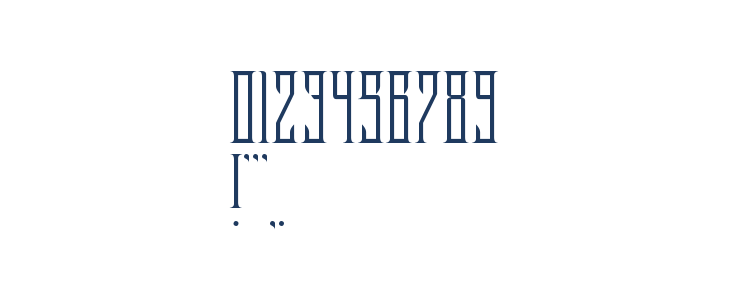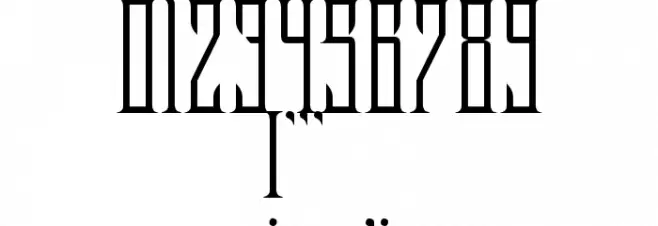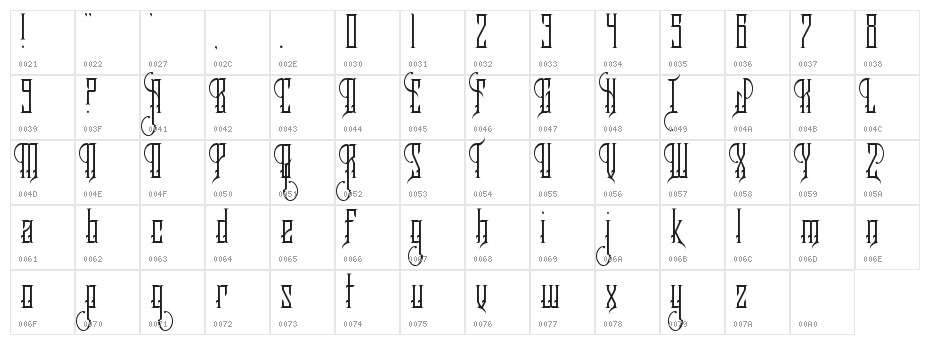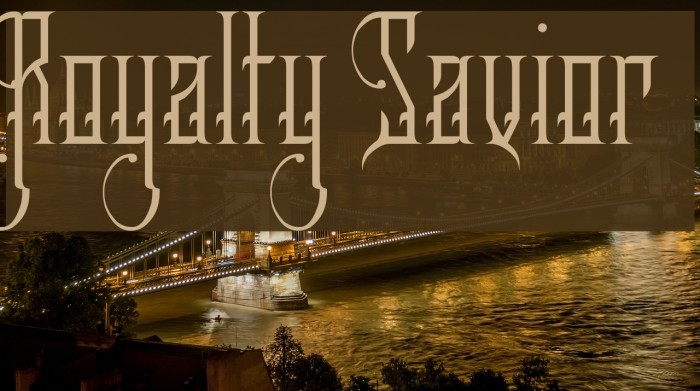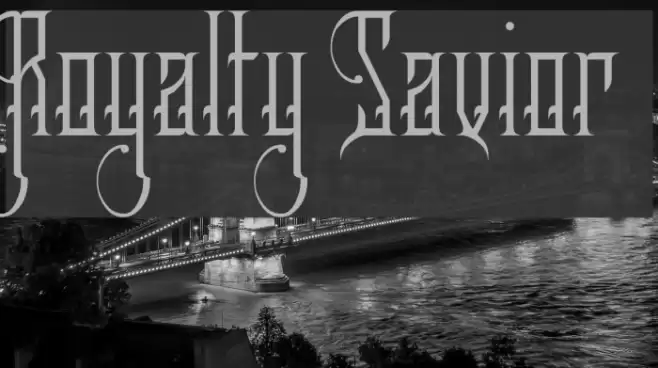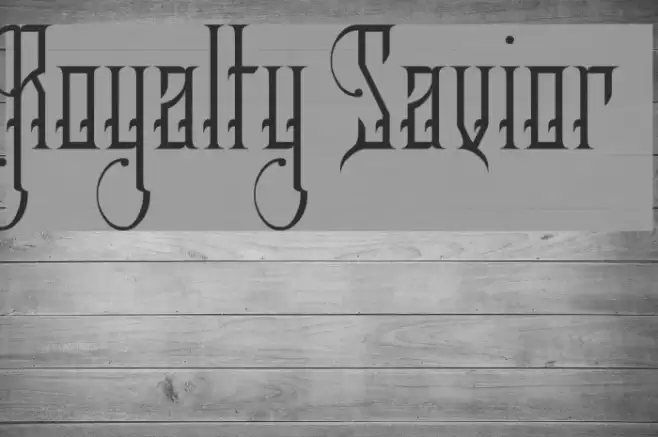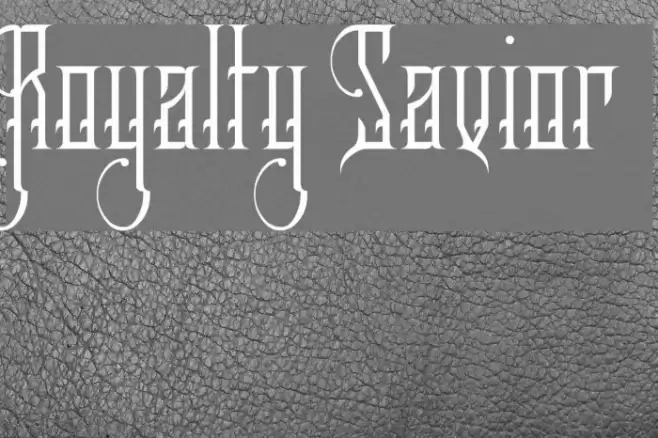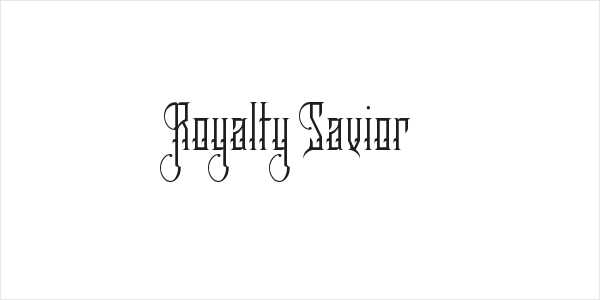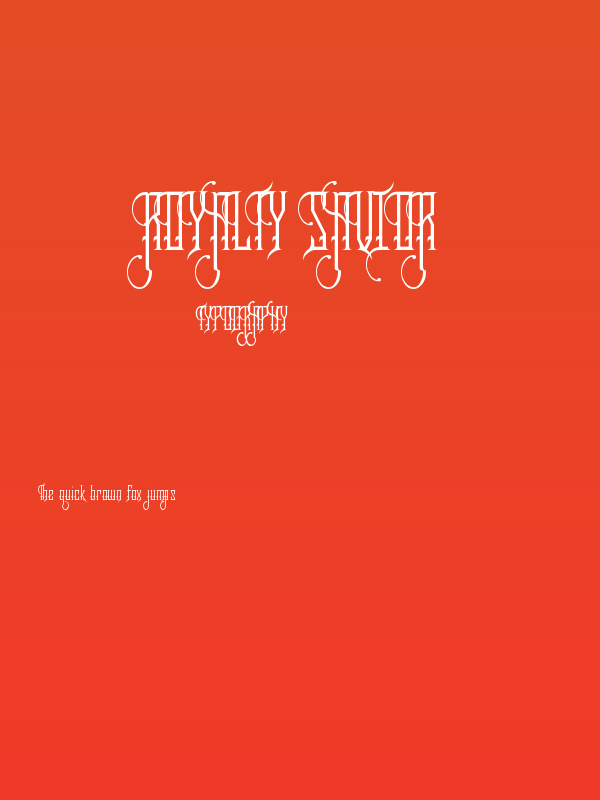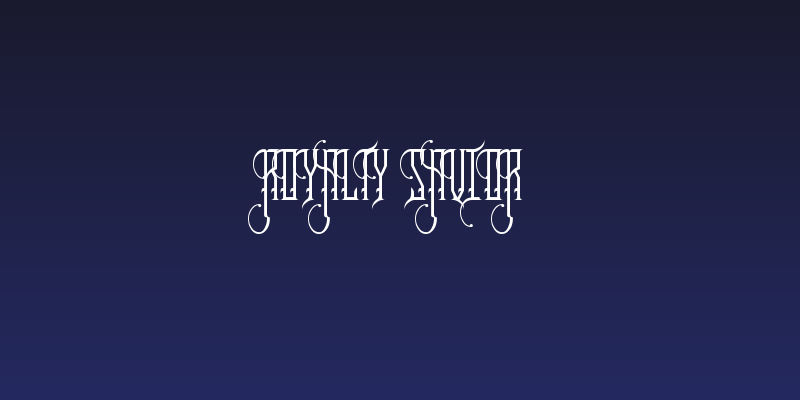
Royalty Savior Font
Royalty Savior Description
This font exhibits a highly decorative and intricate design, reminiscent of traditional blackletter styles with a modern twist. The characters are elongated and feature sharp, angular lines with ornate flourishes, giving them a regal and sophisticated appearance. The uppercase letters are particularly elaborate, with extended vertical strokes and intricate detailing that create a sense of grandeur. The lowercase letters maintain a similar aesthetic but are slightly more restrained, ensuring readability. Numerals and special characters are designed to match the overall style, with unique embellishments that enhance the font's dramatic flair. This font's distinctiveness makes it suitable for projects that require a bold and striking visual impact.
| Proposed Projects | Ideal for use in branding, logos, posters, and any design project that seeks to convey elegance and sophistication. |